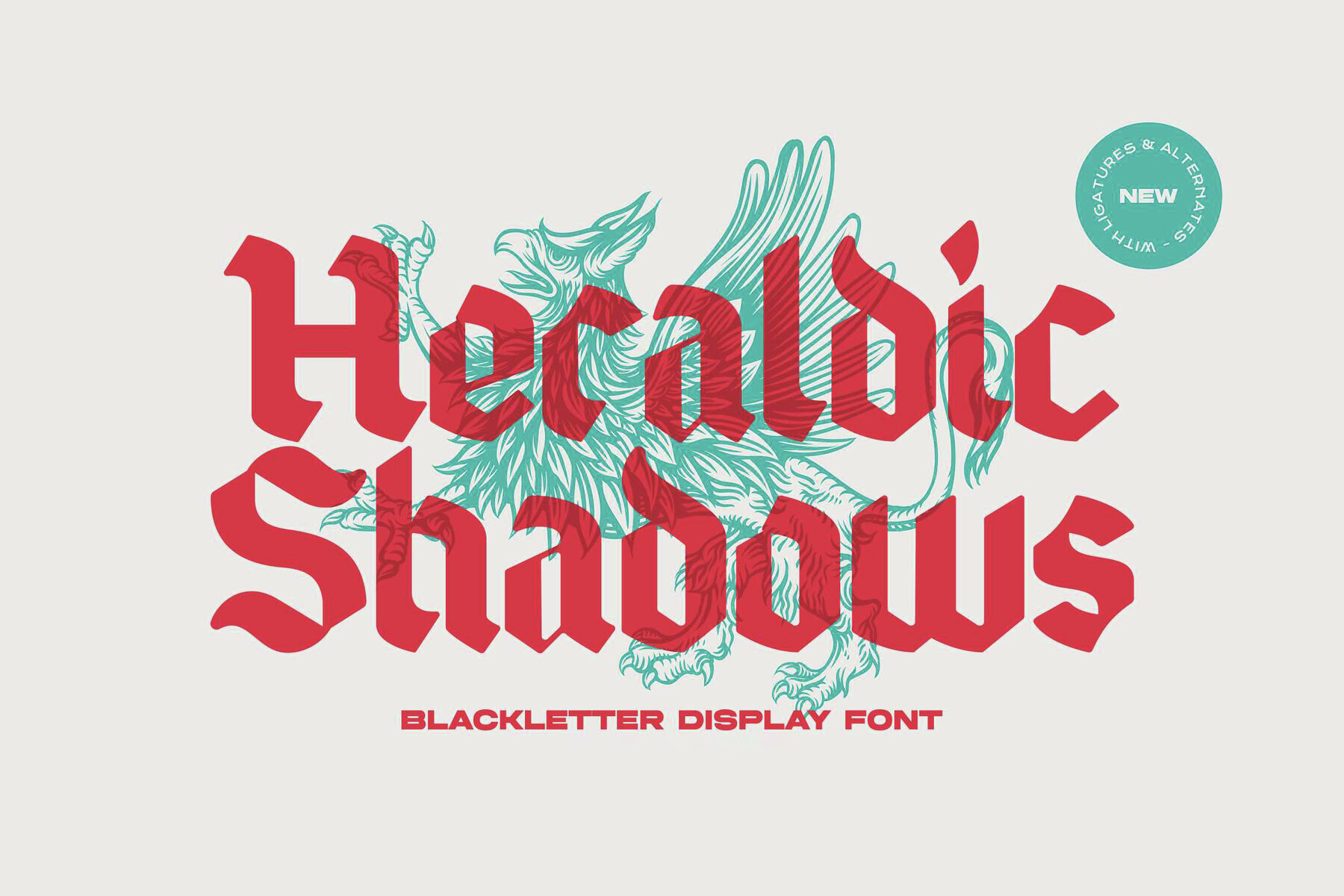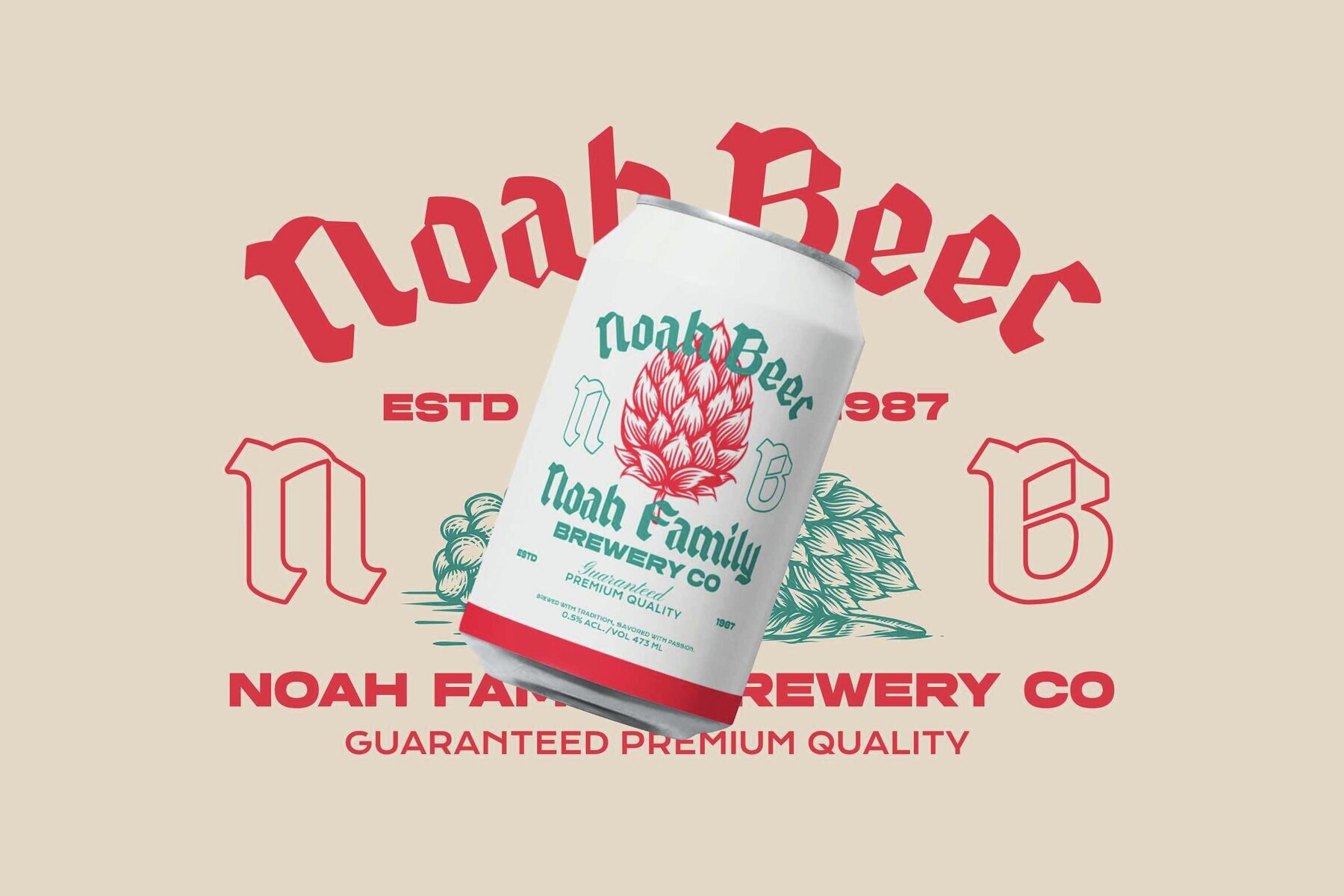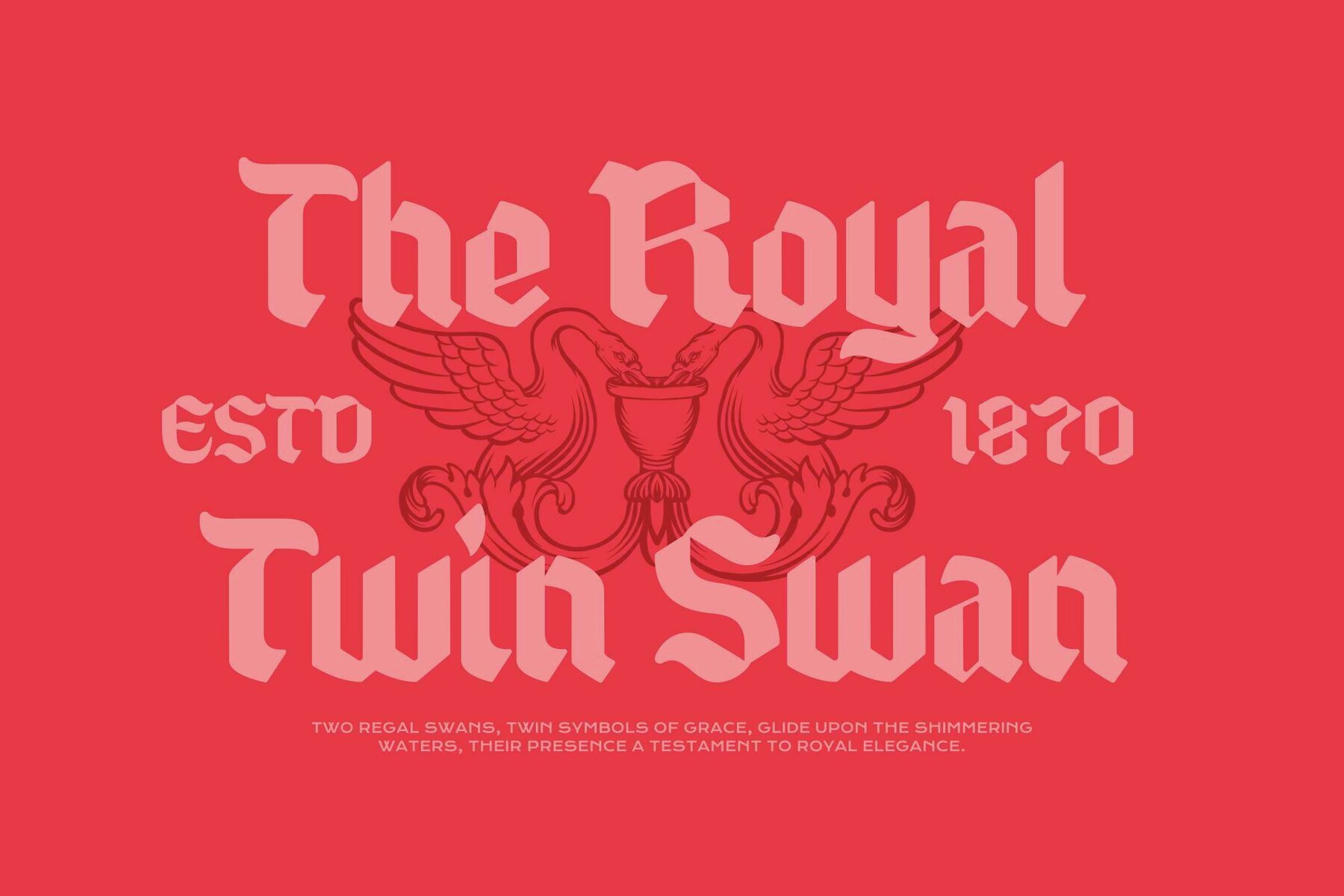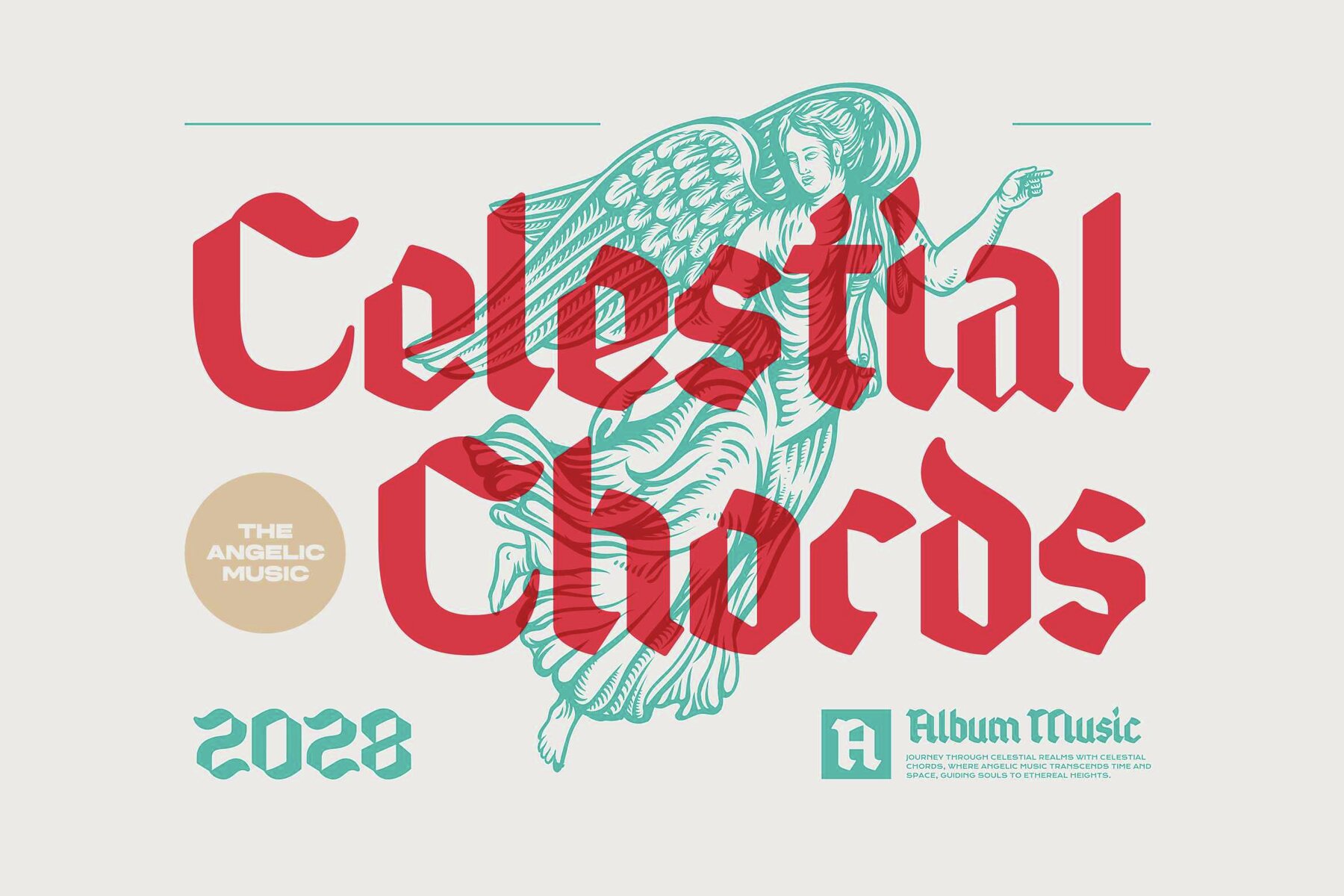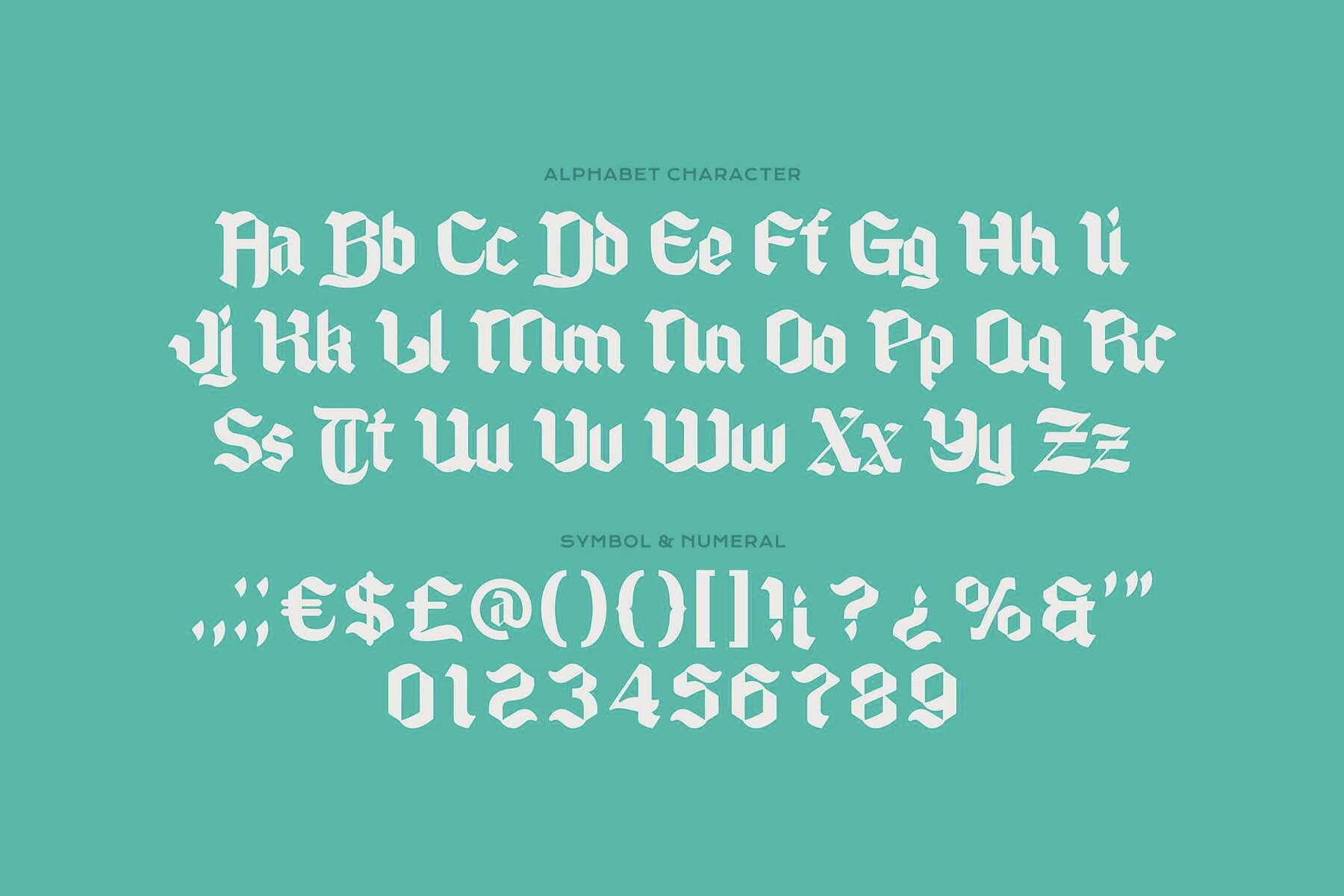
Heraldic Shadows Font
Heraldic Shadows stands as a formidable blackletter display font, merging historical majesty with contemporary clarity. Each character is meticulously crafted, showcasing weighted strokes and sharp, chiseled terminals that make an indelible mark. This typeface offers a modern twist on classic gothic calligraphy, emphasizing both balance and visual impact. Stately uppercase letters add a touch of grandeur to initial caps and regal branding. Its angular forms, combined with subtle calligraphic influences, make Heraldic Shadows an ideal choice for those seeking dark elegance, historical gravitas, or a modern edge. Features:Heraldic Shadows: Gothic Blackletter Typeface